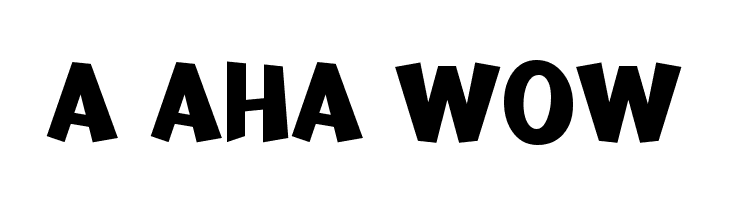
( Pat Snyder - www.patsnyderartist.com/patsnyder_fonts.html )
A bold, impactful font with thick strokes and minimal contrast, perfect for strong visual statements.
( Chequered Ink - chequered.ink/ )
A bold, modern font with strong, uniform strokes and high legibility.
( Darrell Flood )
A bold, condensed font with tall, narrow characters and high contrast.
A bold, italic sans-serif font with a dynamic and modern style.
An elegant script font with flowing, cursive letters and intricate swashes.
A modern, decorative font with a striped, textured design.
A bold, italicized font with angular lines and a futuristic style.
( Fonts by tudy1311 )
A dynamic, expressive handwritten font with fluid strokes and a natural appearance.
( www.southype.com )
A dot-based, digital-style font with a modern, pixelated appearance.